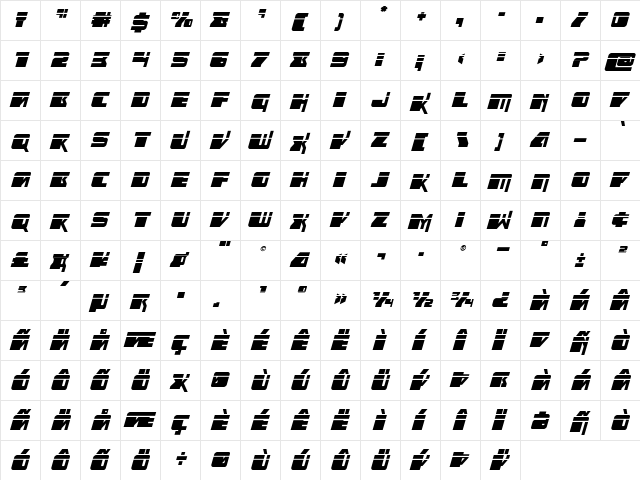
Space Runner Laser Italic Regular
Design Context for Space Runner Laser Italic Typeface
Space Runner Laser Italic is a composed and adaptable typeface that performs quietly and consistently across a wide range of design contexts. The dynamic lean of this cut emphasises speed and emphasis in any layout.
Pro Tip: Try Space Runner Laser Italic for annotation and caption copy alongside an upright companion — the contrast in angle creates a dynamic but ordered typographic system.